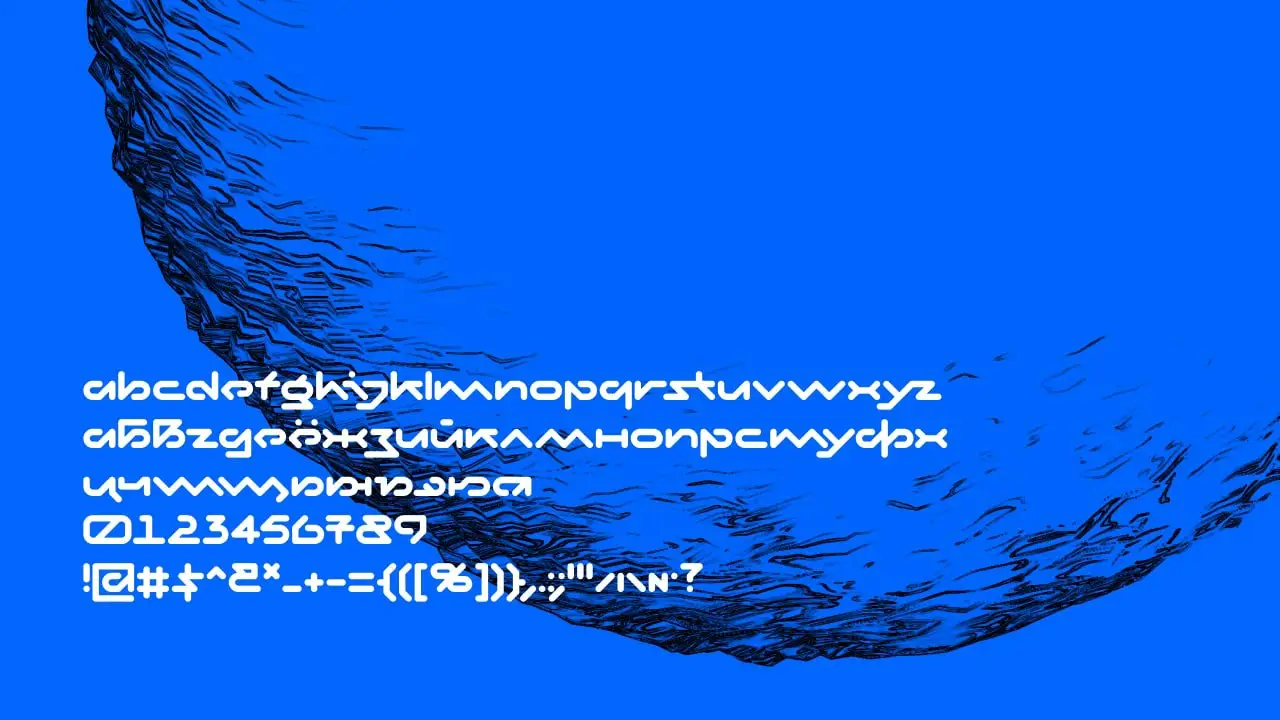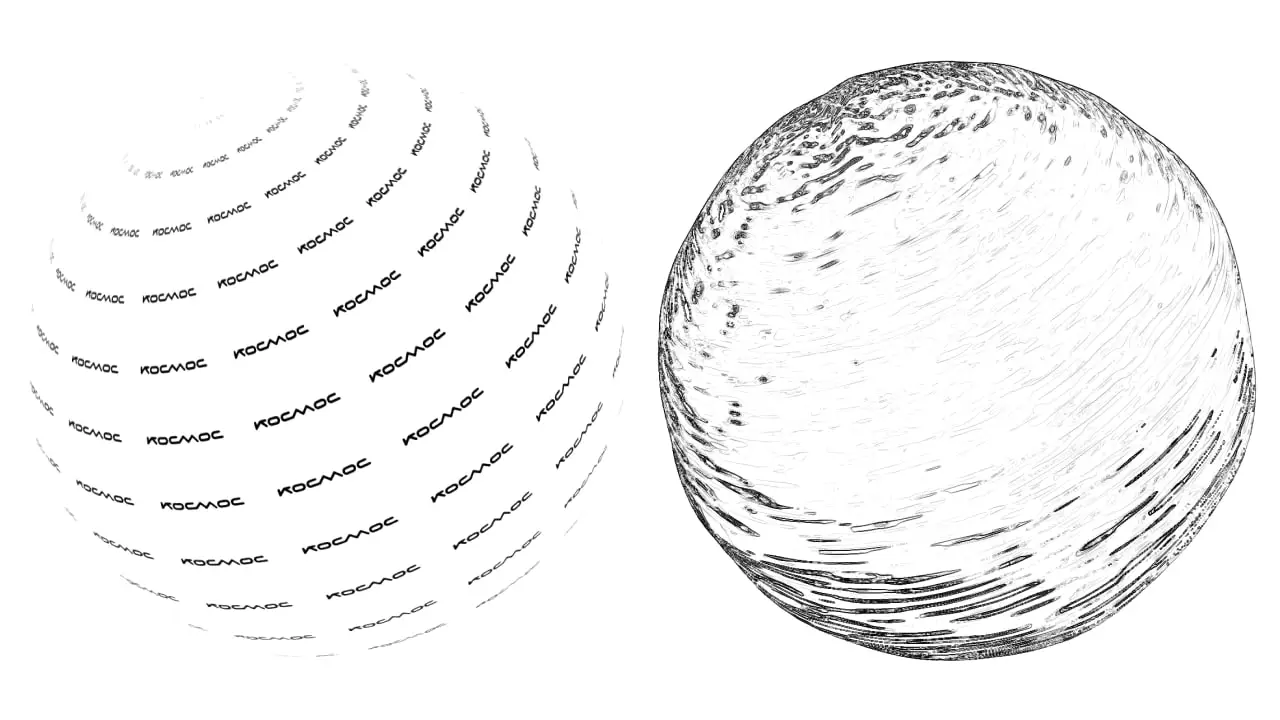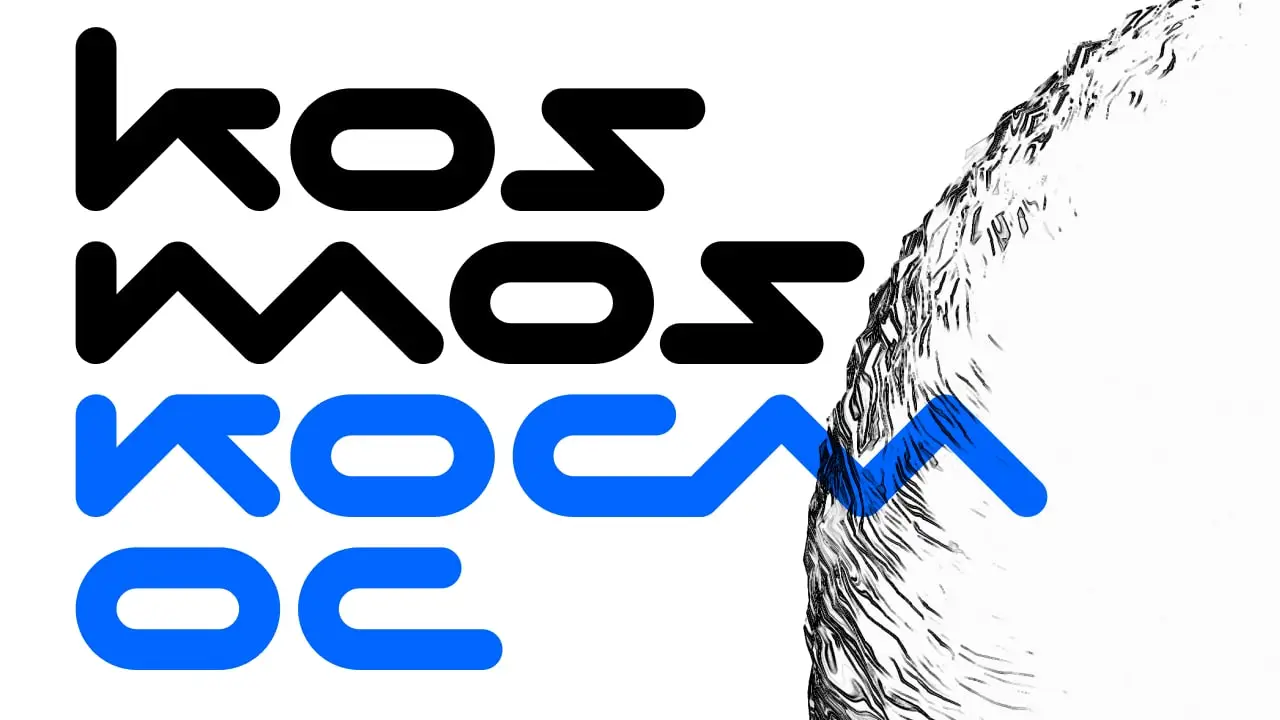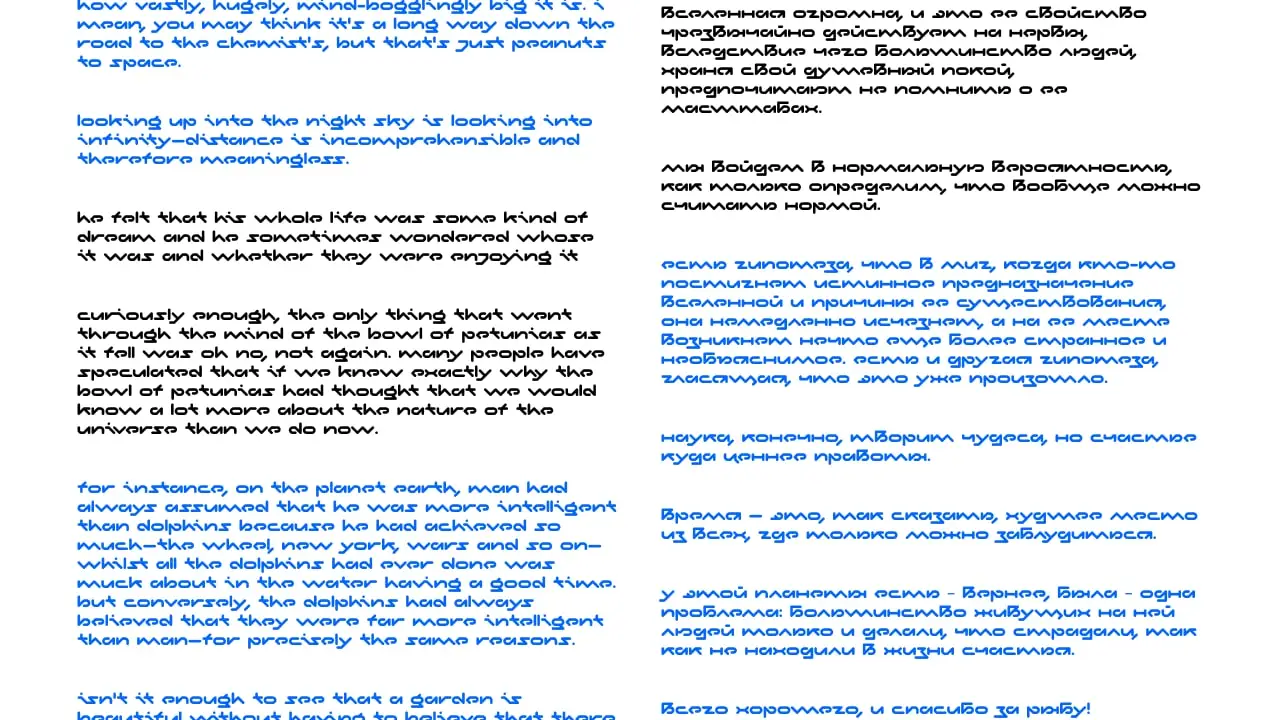
Kosmos Font (Free For Personal Use)
The Kosmos Font is a beautifully crafted typeface that brings a modern touch to your design projects. With its clean lines and geometric shapes, this font is perfect for a variety of applications, from branding and logos to web and print materials.
• Stylish geometric design
• Use in digital designs for a contemporary look
• Great for creating eye-catching headlines